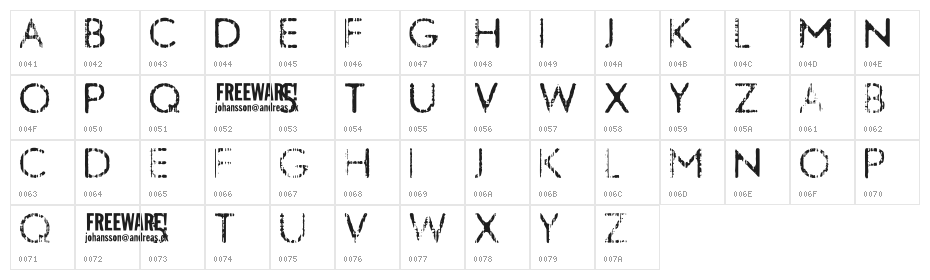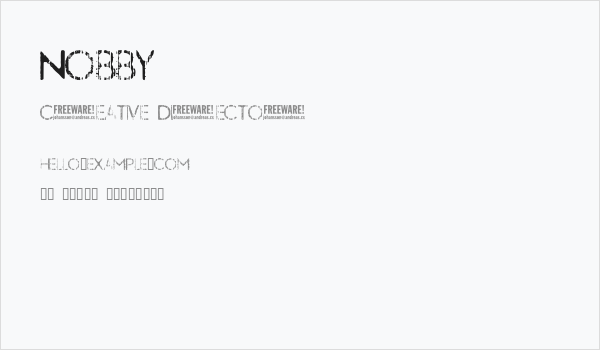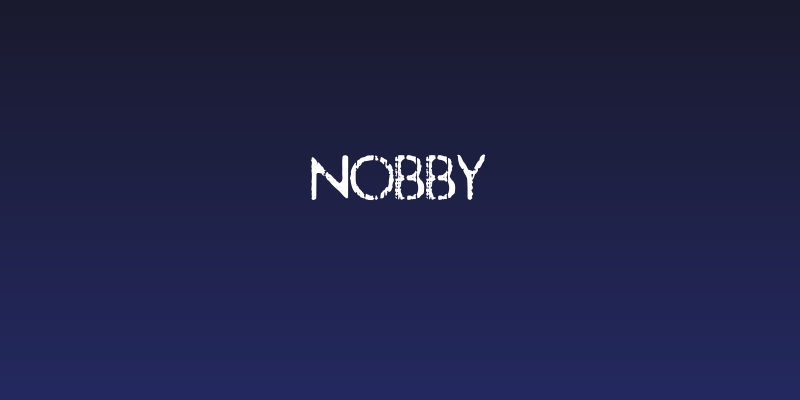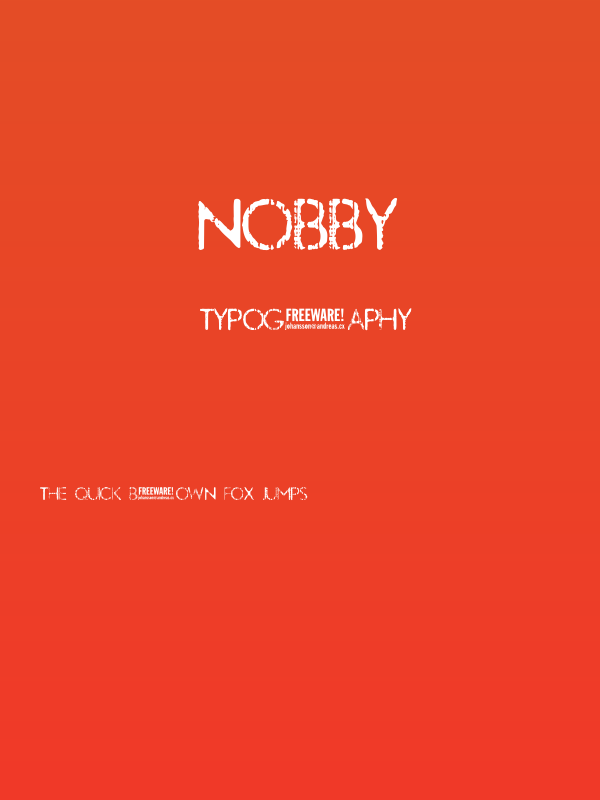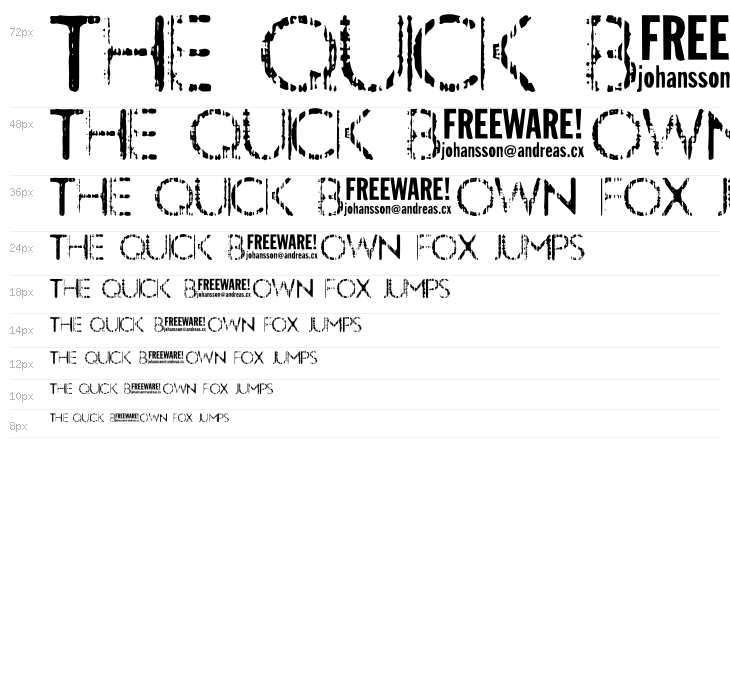
Nobby Font
Nobby Description
This font features a distressed, grunge style with a worn and weathered appearance. The characters have an irregular texture, giving them a rugged and edgy look. The uppercase letters are bold and impactful, while the lowercase letters maintain the same distressed aesthetic. The font includes a full set of uppercase and lowercase letters, numbers, and a selection of special characters. Its unique style makes it stand out, perfect for projects that require a bold statement or an artistic touch.
| Overall Style | Grunge, Artistic |
| Use Case | Headlines, Posters, Artistic Designs |
| Proposed Projects | Ideal for album covers, posters, urban-themed designs, and any project needing a bold, artistic statement. |